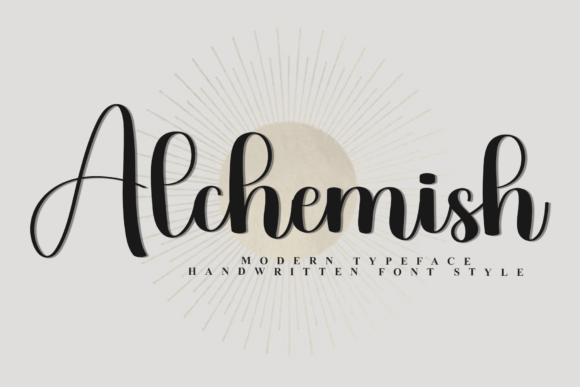
The Magic of Alchemish Font: Elevate Your Holiday Designs
Ah, the holiday season is upon us, and as designers, crafters, and creative hobbyists, we’re on the lookout for that perfect font to make our projects shine. I still remember the year I spent hours scouring font libraries for the ideal typeface for a client’s Christmas card campaign. The brief was simple: festive, merry, and with a touch of whimsy. That’s when I stumbled upon Alchemish Font, and it instantly became my go-to for holiday designs.
An Honest Review of Alchemish Font
- ✅ Festive and merry vibe that’s perfect for holiday projects
- ✅ Decorative elements and whimsical flair that add a touch of enchantment
- ✅ PUA encoded for easy access to glyphs and ligatures
- ✅ Works beautifully for greeting cards, gift tags, and holiday-themed projects
While Alchemish Font is a stunning typeface, there are a few things to keep in mind:
- 🤔 Limited use outside of holiday-themed projects (may not be suitable for more formal or corporate designs)
- ⚠️ May require some exploration to get familiar with the OpenType features and glyphs
The Backstory of Alchemish Font
Legend has it that Alchemish Font was created by a team of designers who wanted to bottle the magic of the holiday season in a typeface. Inspired by vintage holiday cards, festive decorations, and the whimsy of childhood, they crafted a font that would bring joy and wonder to designs. And so, Alchemish Font was born!